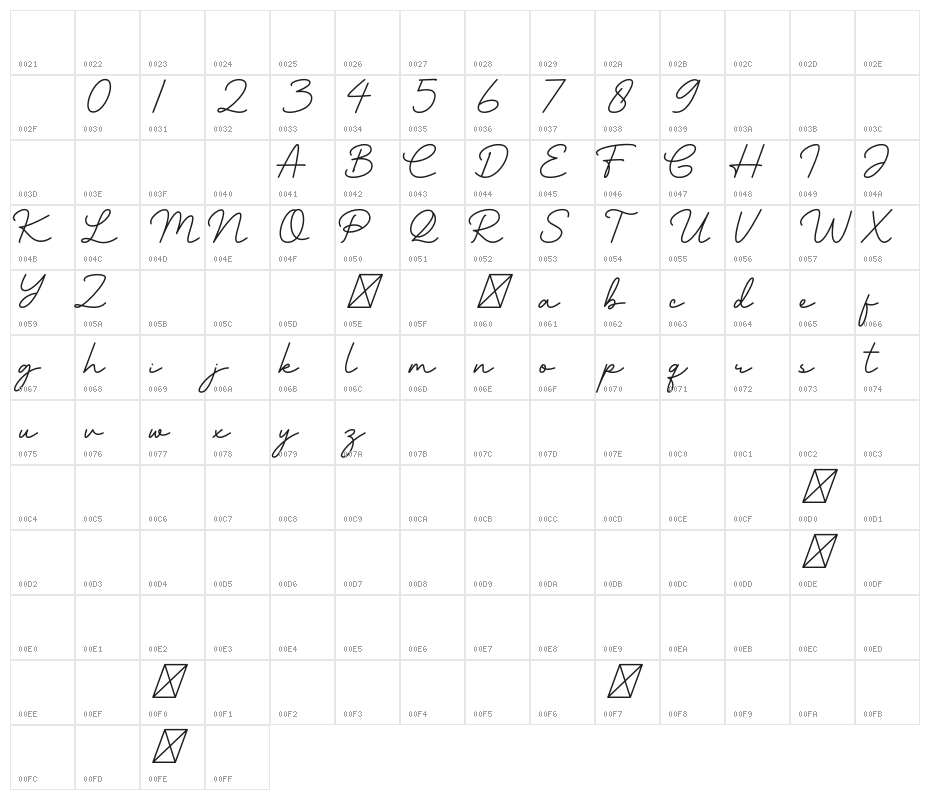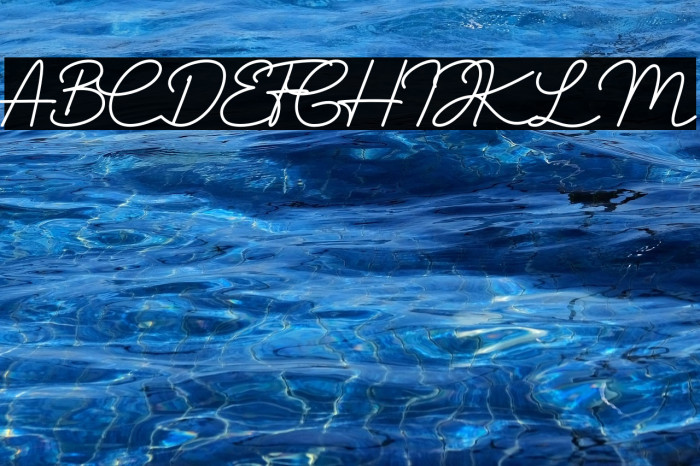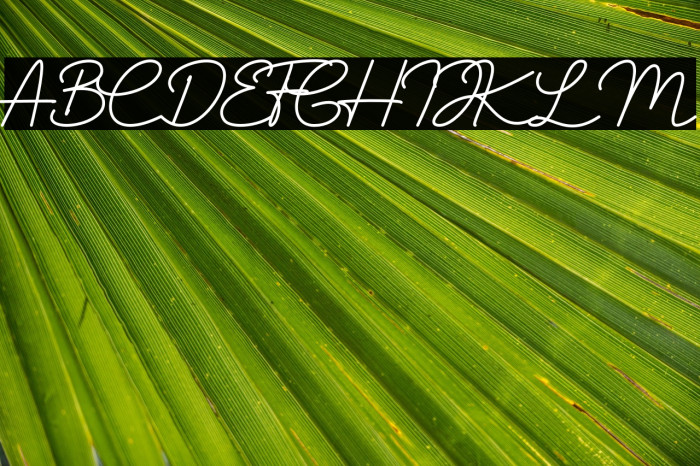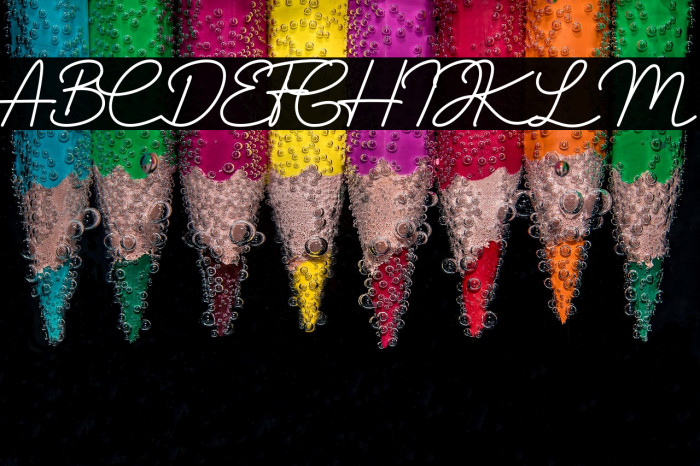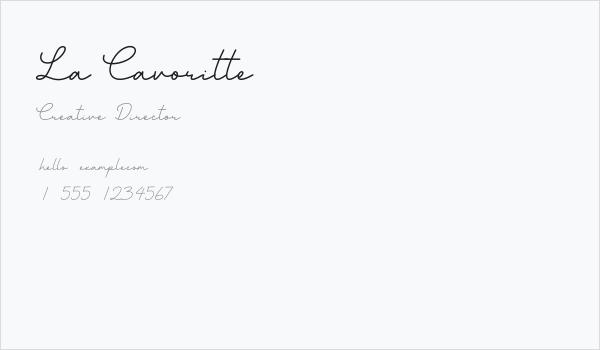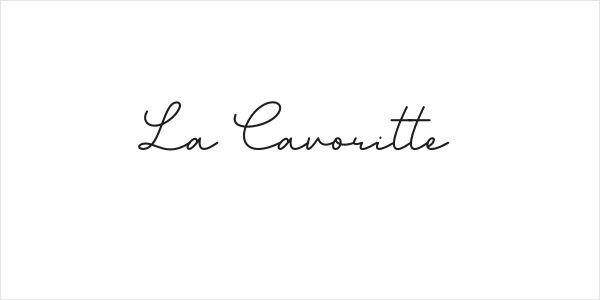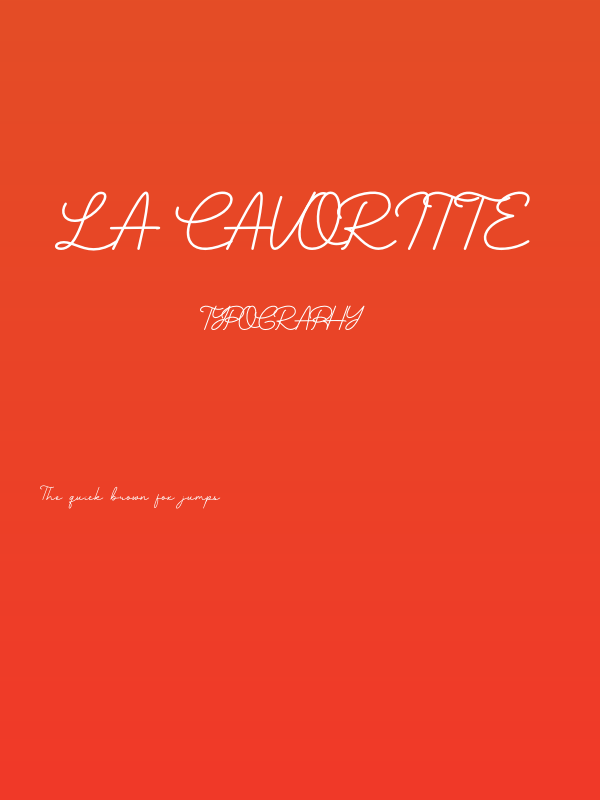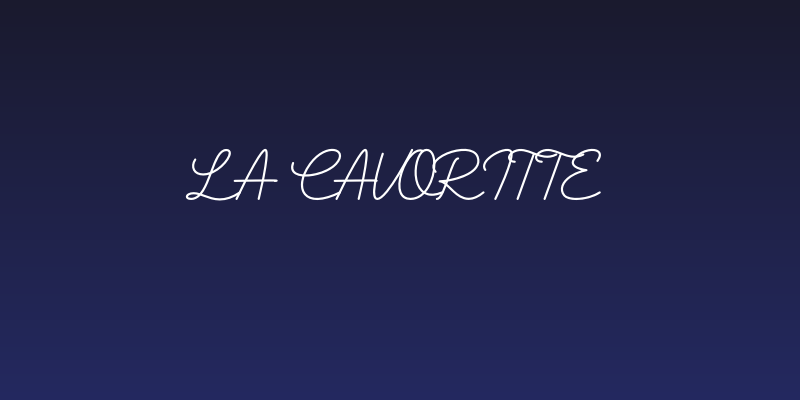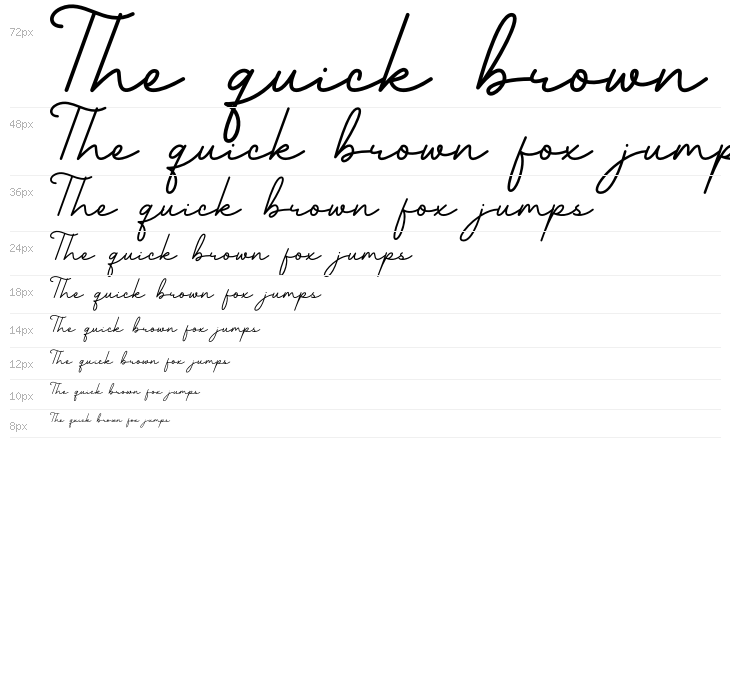
La Cavoritte Font
La Cavoritte Description
This elegant script font features a flowing, cursive style that mimics natural handwriting. The characters are connected, creating a seamless and fluid appearance. The strokes are smooth and consistent, with a slight slant that adds to its graceful look. The uppercase letters are slightly larger and more ornate, while the lowercase letters maintain a consistent height, enhancing readability. The numerals and special characters are designed to match the overall aesthetic, making this font versatile for various applications.
| Overall Style | Elegant, Handwritten |
| Proposed Projects | Ideal for wedding invitations, greeting cards, personal branding, and elegant logo designs. |